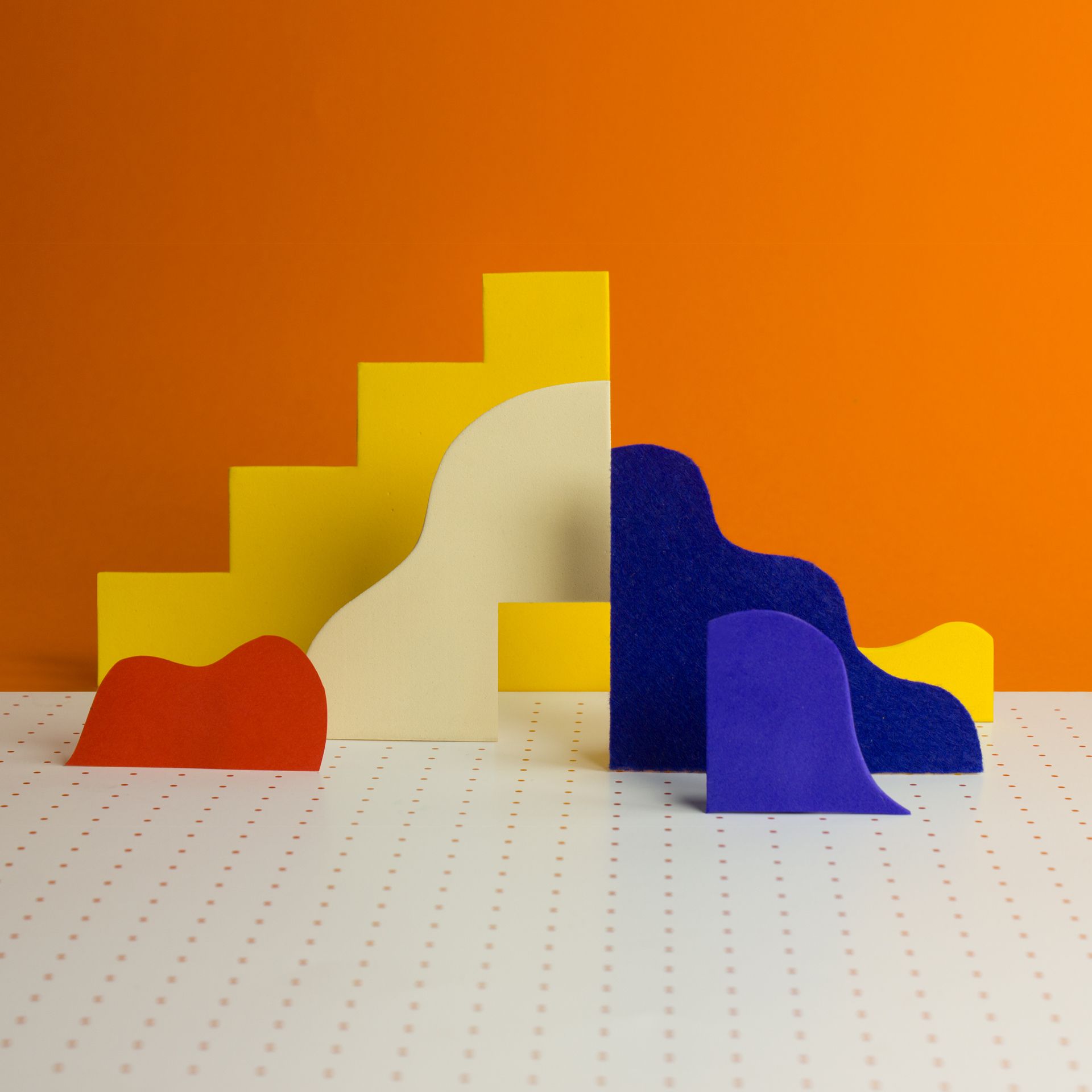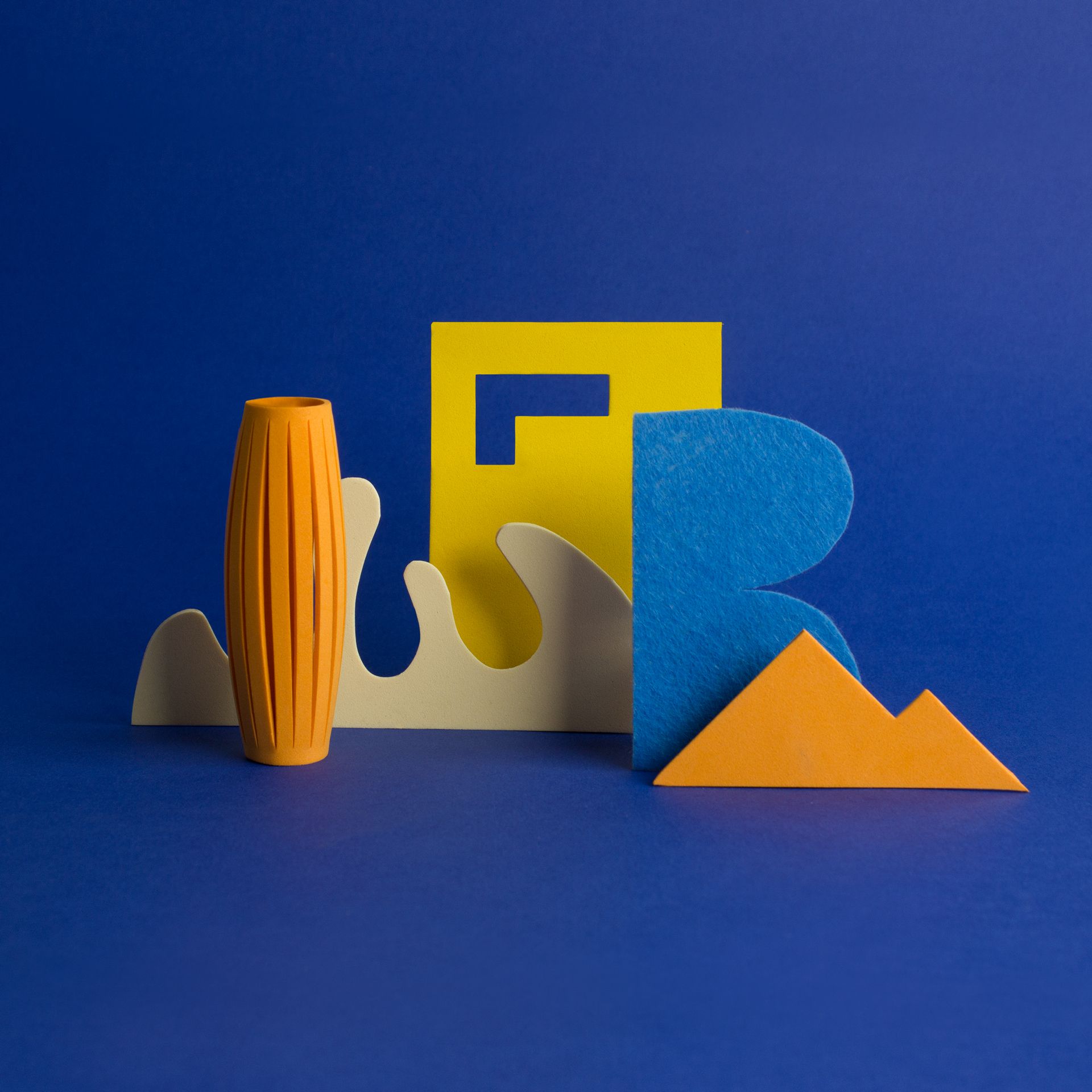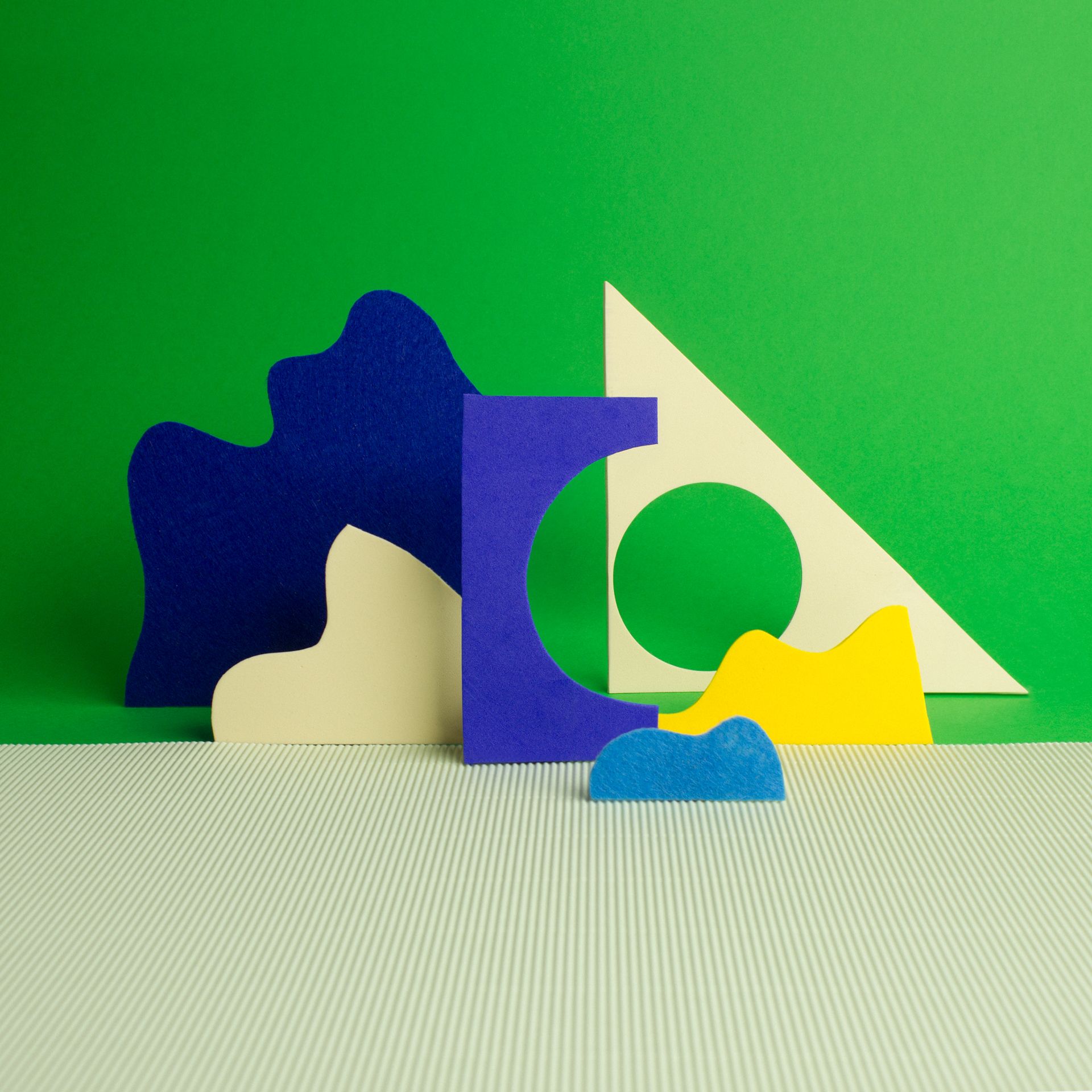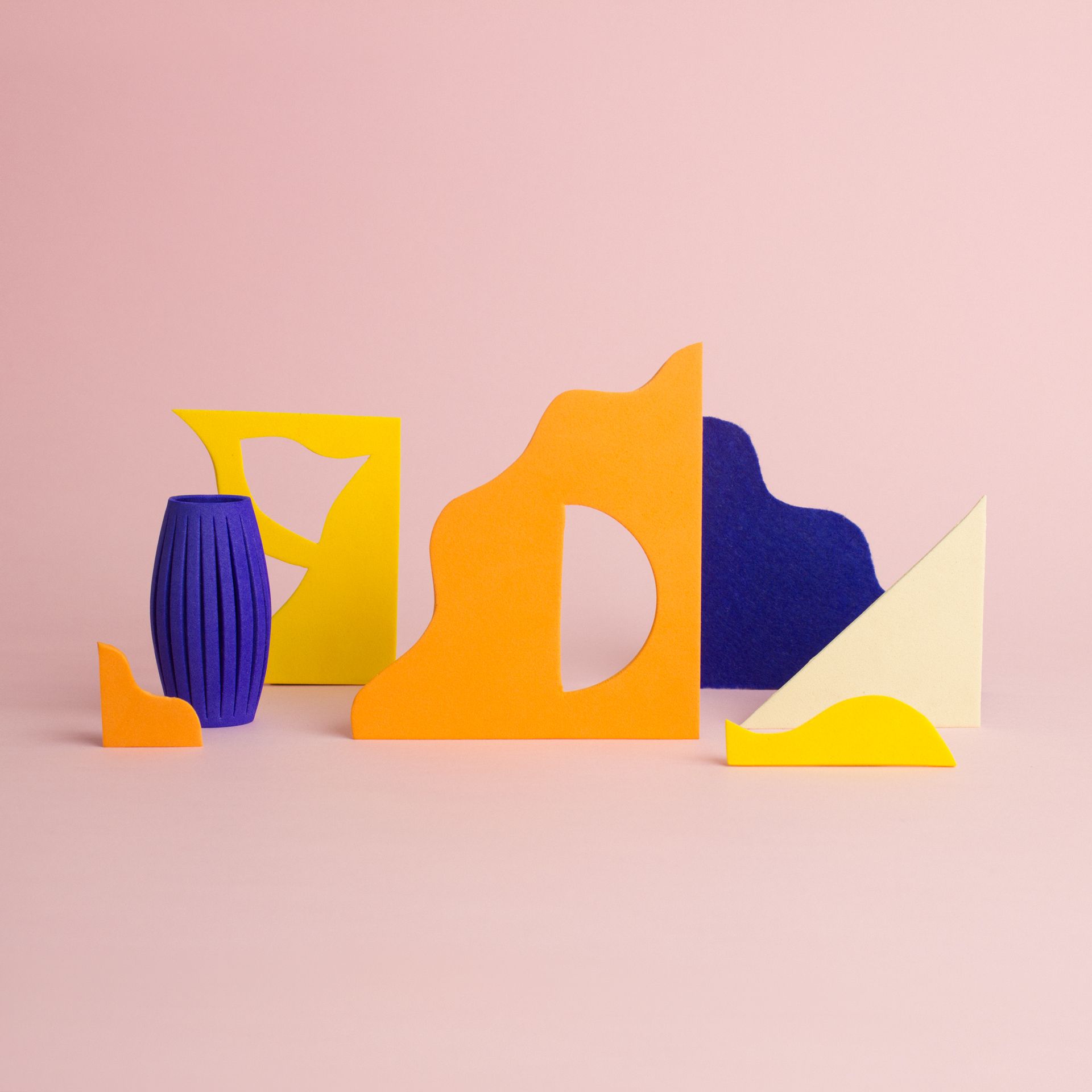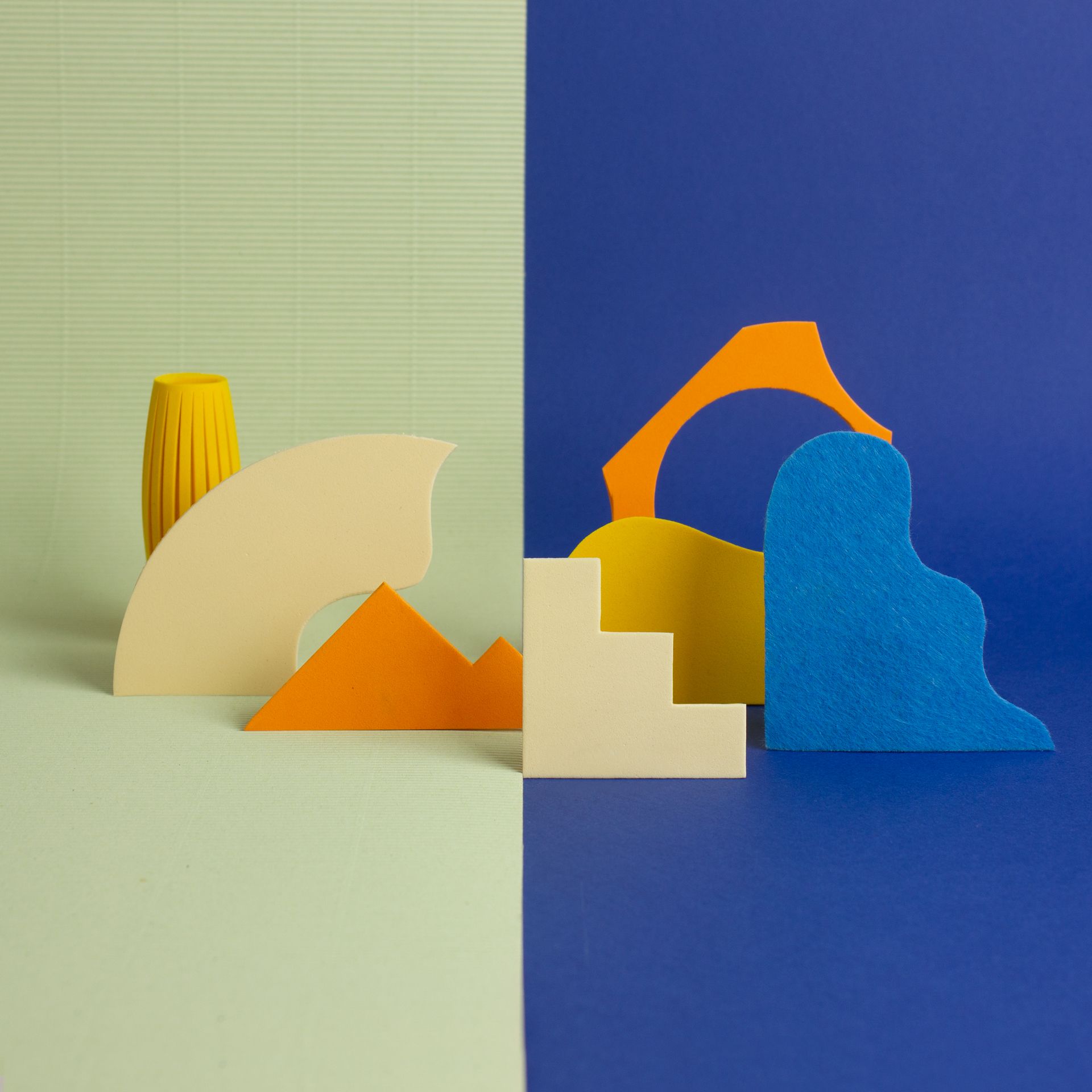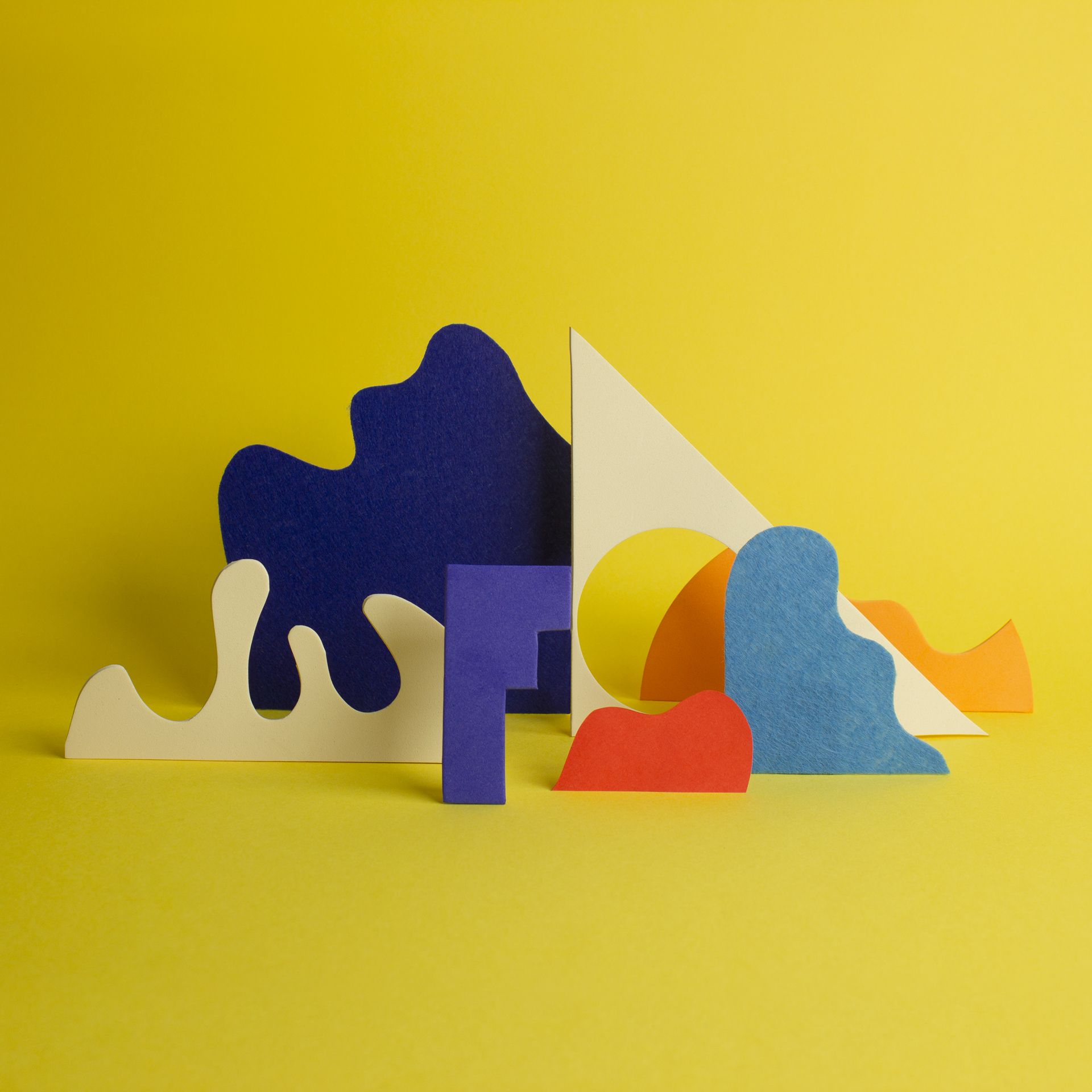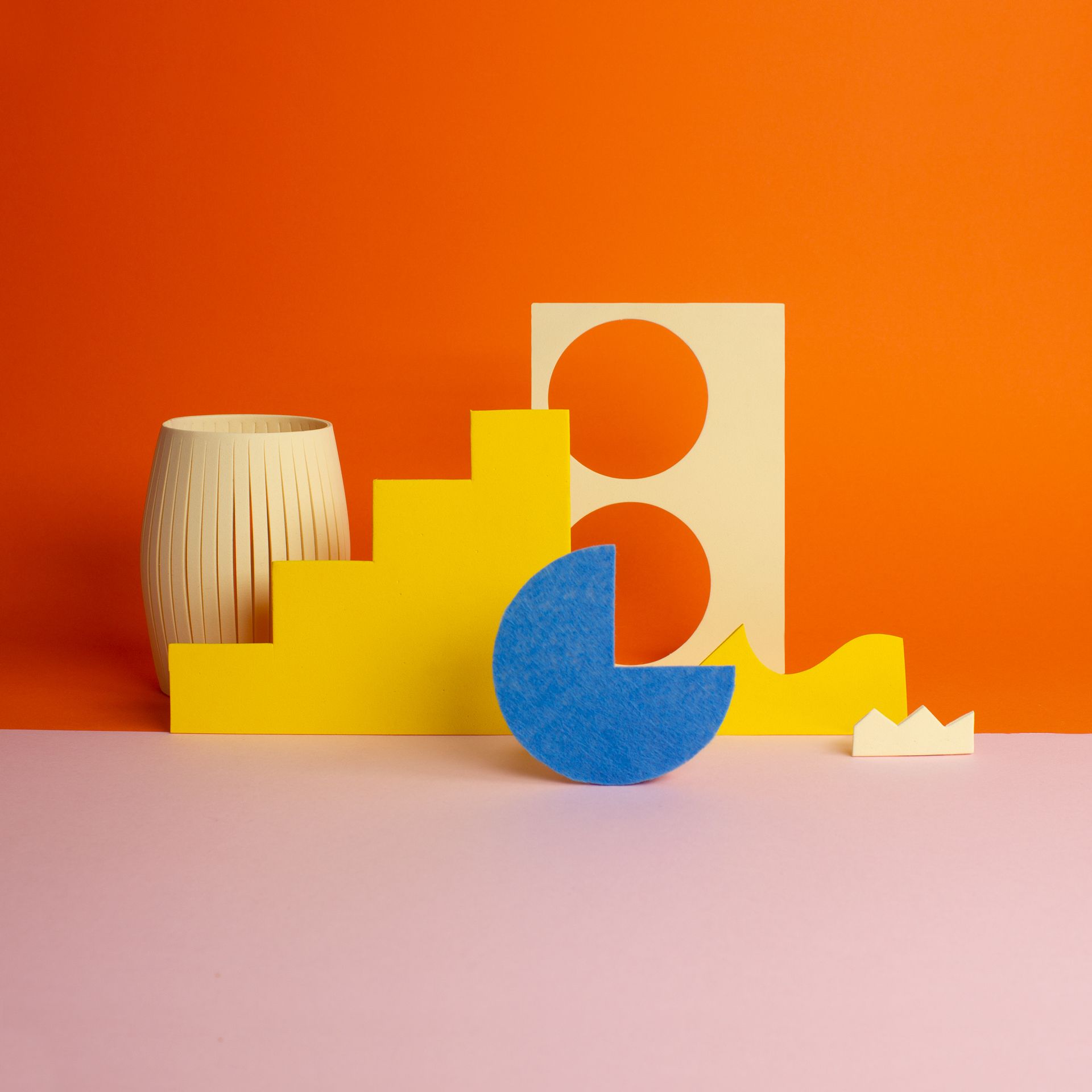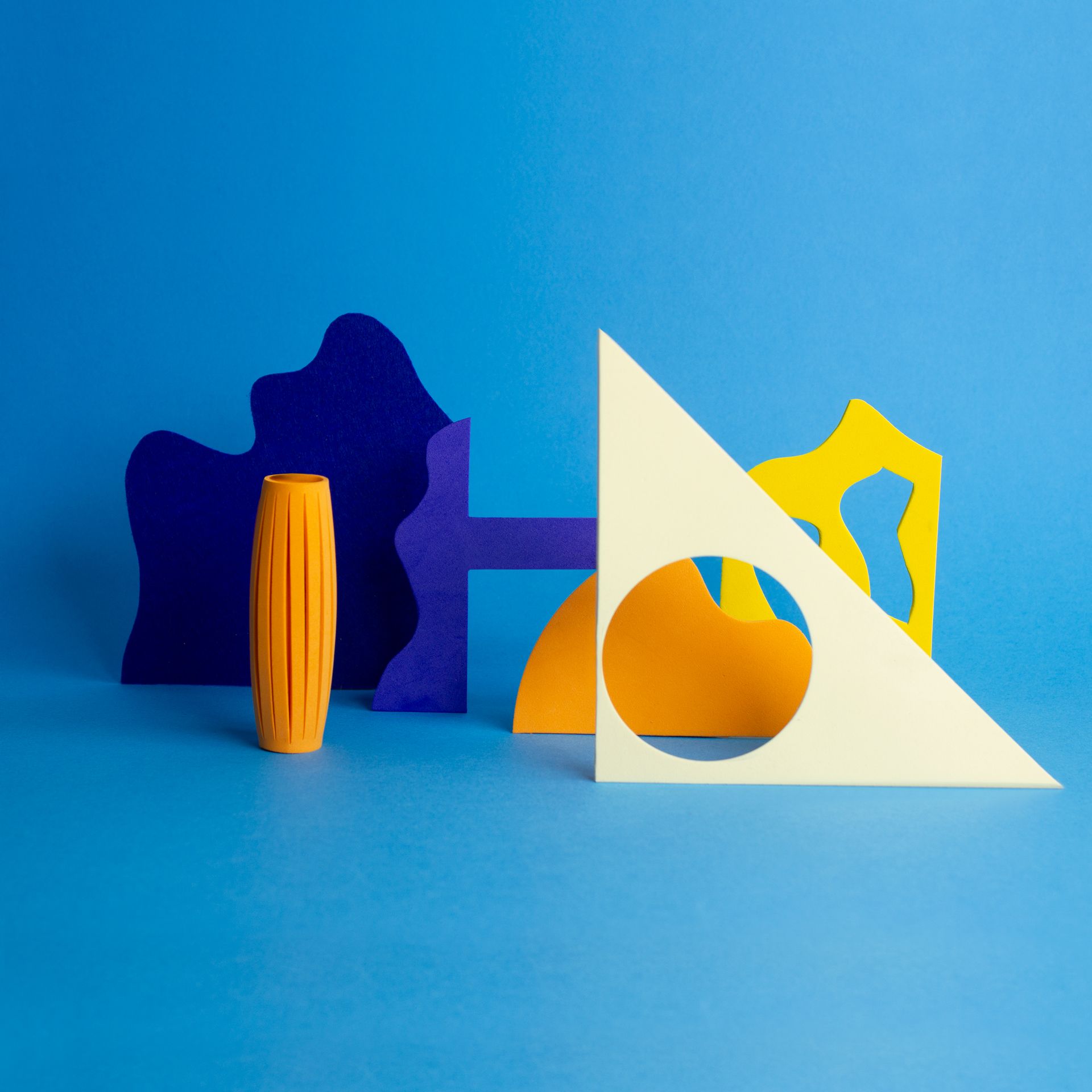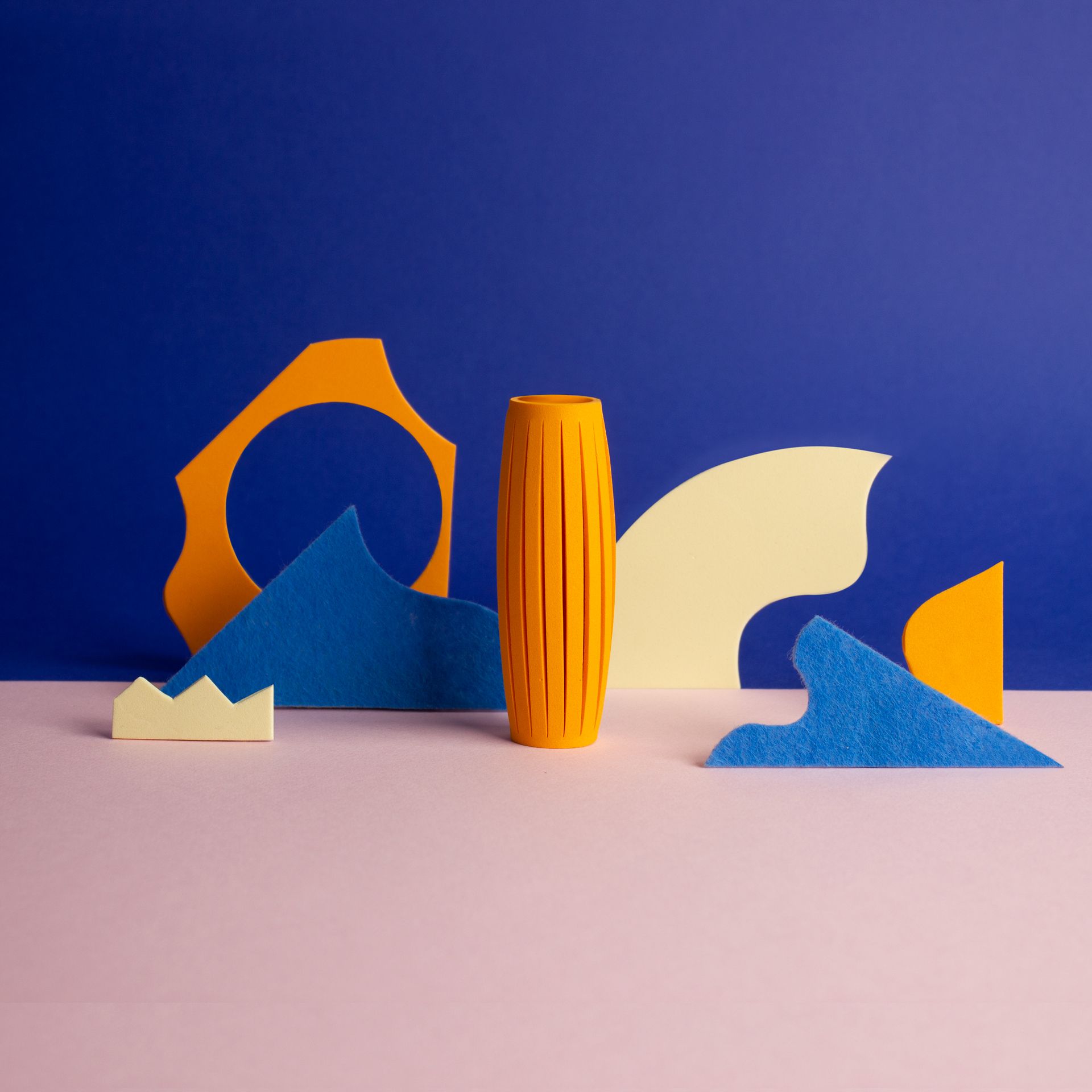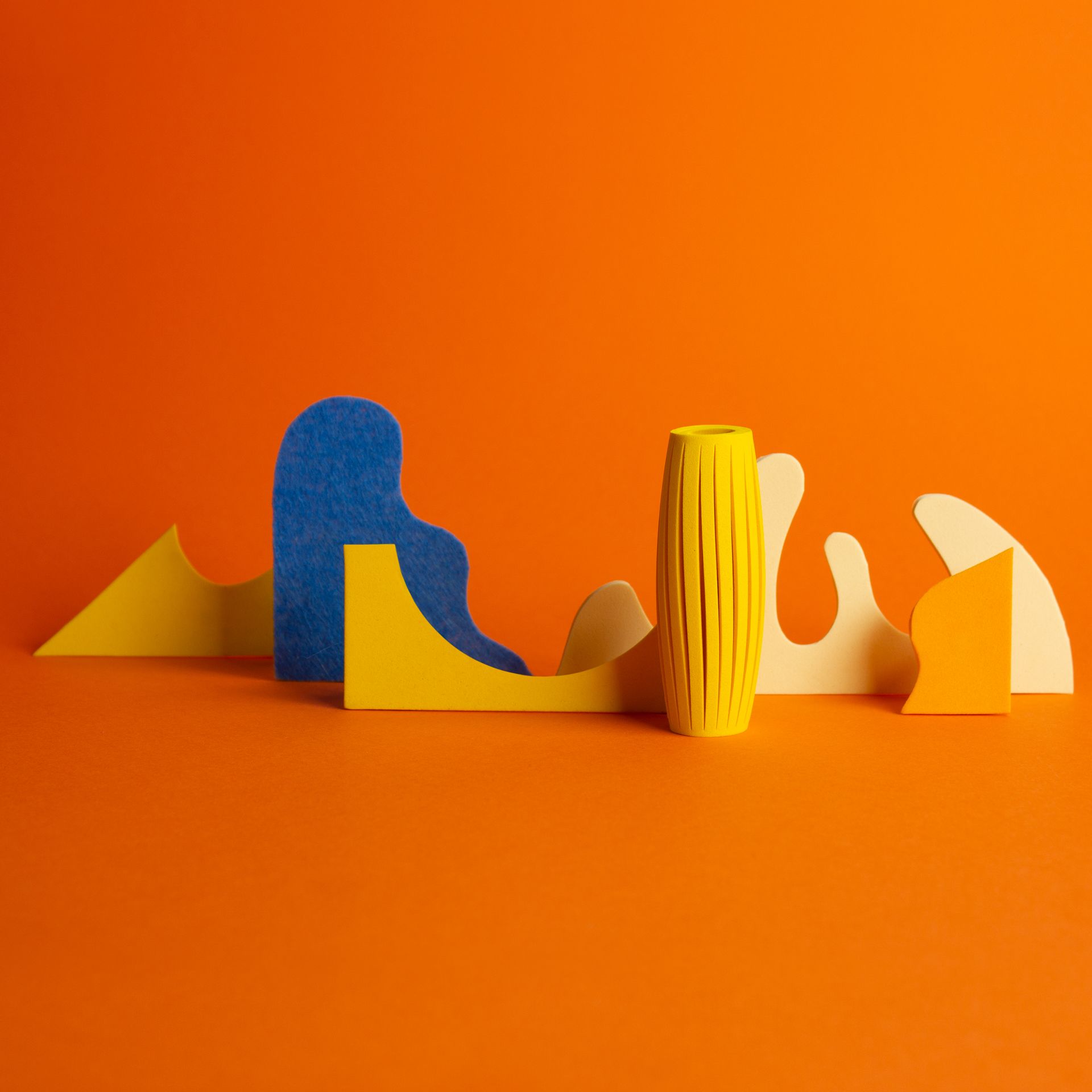
Landscape Typeface was originated for the 36 Days of Type project. It shows the alphabet in different set designs, playing with shapes, hiding and designing the letters that were created using materials like foam and papers.